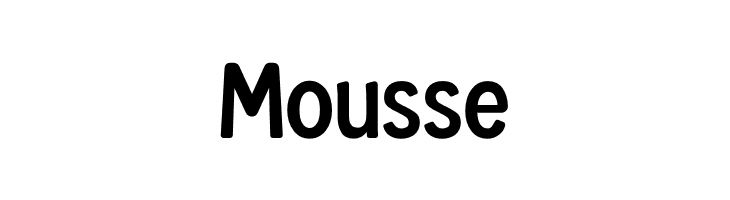
A playful, bold font with rounded, bubbly characters.
A playful, bold font with rounded, thick strokes and a whimsical touch.
A bold, dynamic handwritten font with thick, uneven strokes.
A playful, hand-drawn font with rounded, informal characters.
A bold, modern font with geometric shapes and consistent stroke width.
A bold, geometric font with a modern and assertive style.
A bold, geometric font with a modern and robust aesthetic.
A bold, geometric font with strong, thick strokes and a modern aesthetic.
A bold, geometric font with a modern and assertive style.
A bold, geometric font with a modern and impactful design.